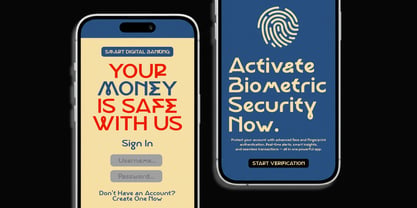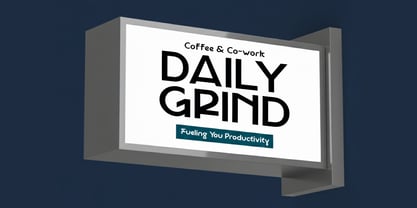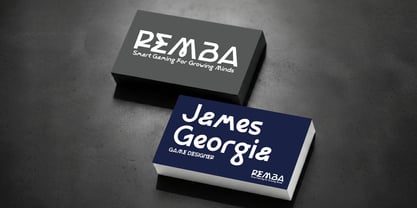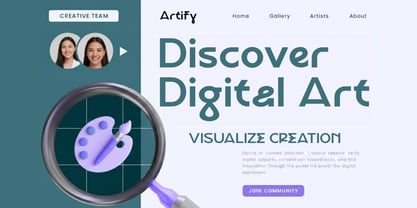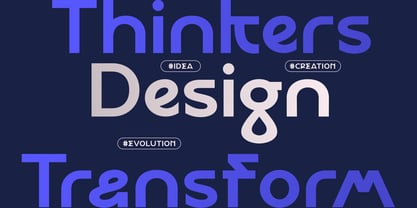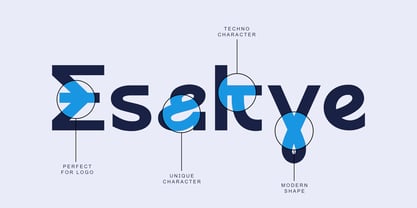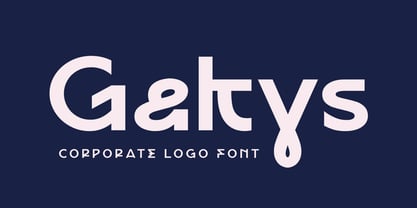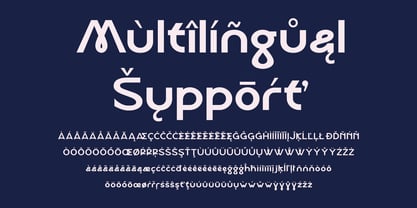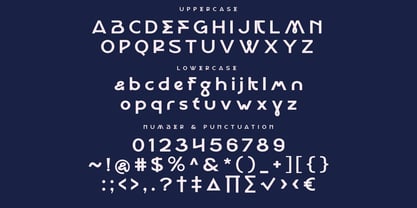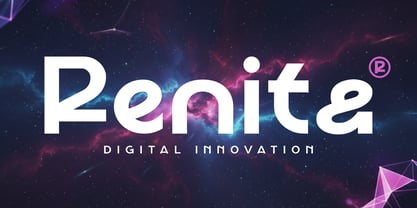
Gakys
The Gakys Font Family was designed by Saiful Anwar and published by Sealoung. Gakys contains 1 styles. More about this family
Gakys – Corporate Logo Font Gakys is a modern corporate logo font designed to deliver a clean, confident, and professional identity. Featuring smooth geometric curves, balanced proportions, and distinctive letterforms, Gakys creates a strong visual presence while maintaining elegance and clarity. Its minimalist construction combined with subtle unique details makes Gakys ideal for brands that want to appear trustworthy, modern, and forward-thinking. The font performs beautifully in both large-scale logo applications and refined branding materials. Gakys is perfectly suited for corporate logos, business branding, technology companies, startups, financial institutions, premium services, and modern visual identities. Its versatile and timeless style ensures your brand stands out with professionalism and sophistication.